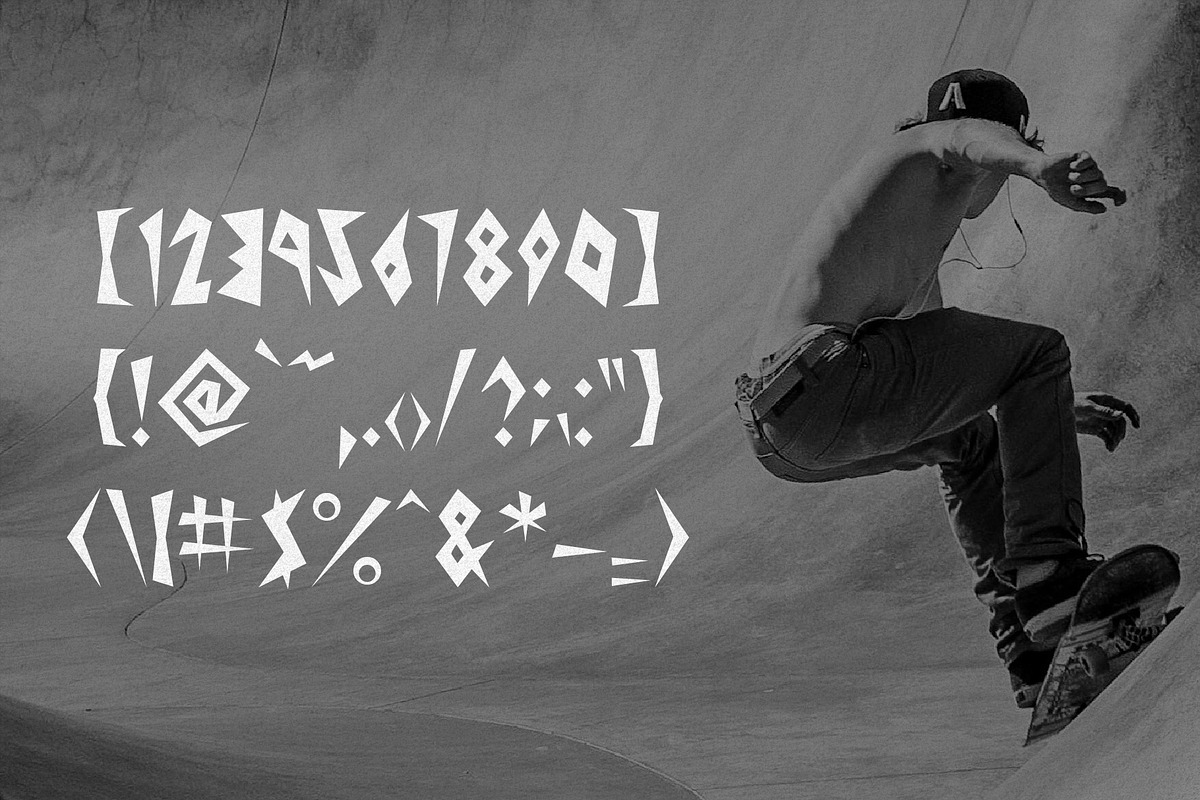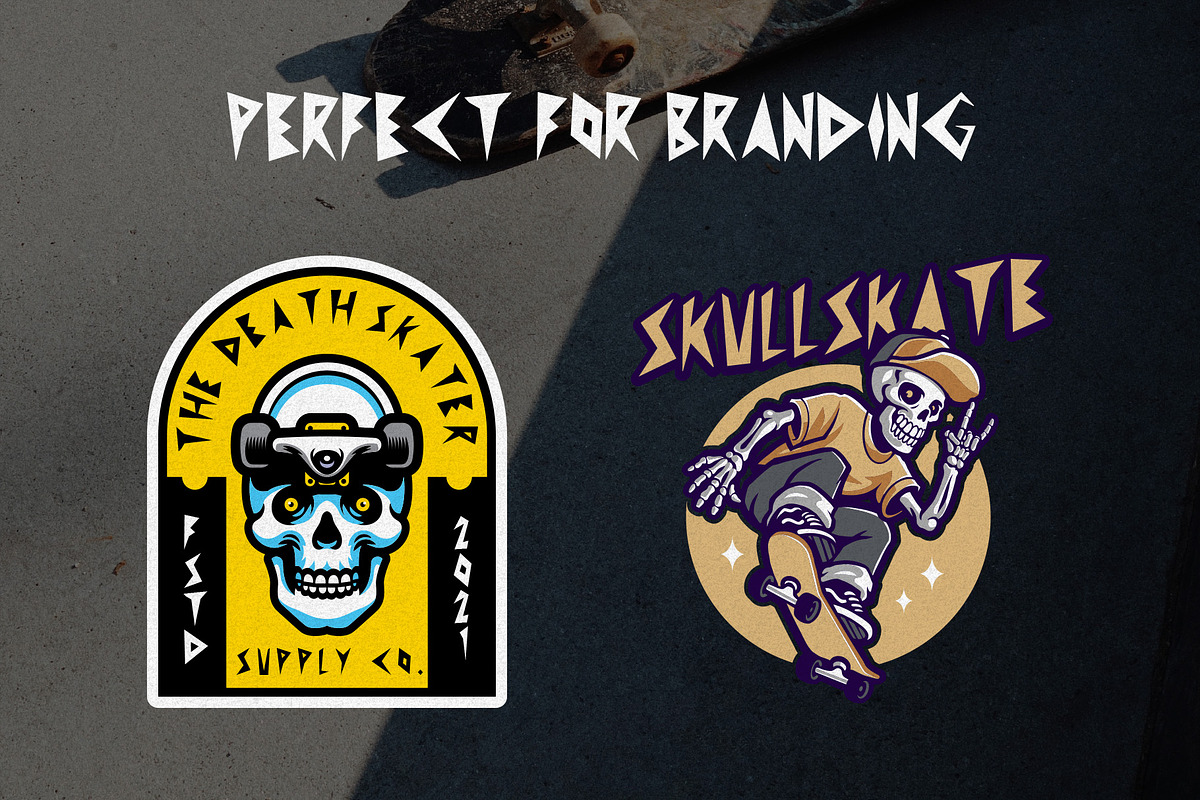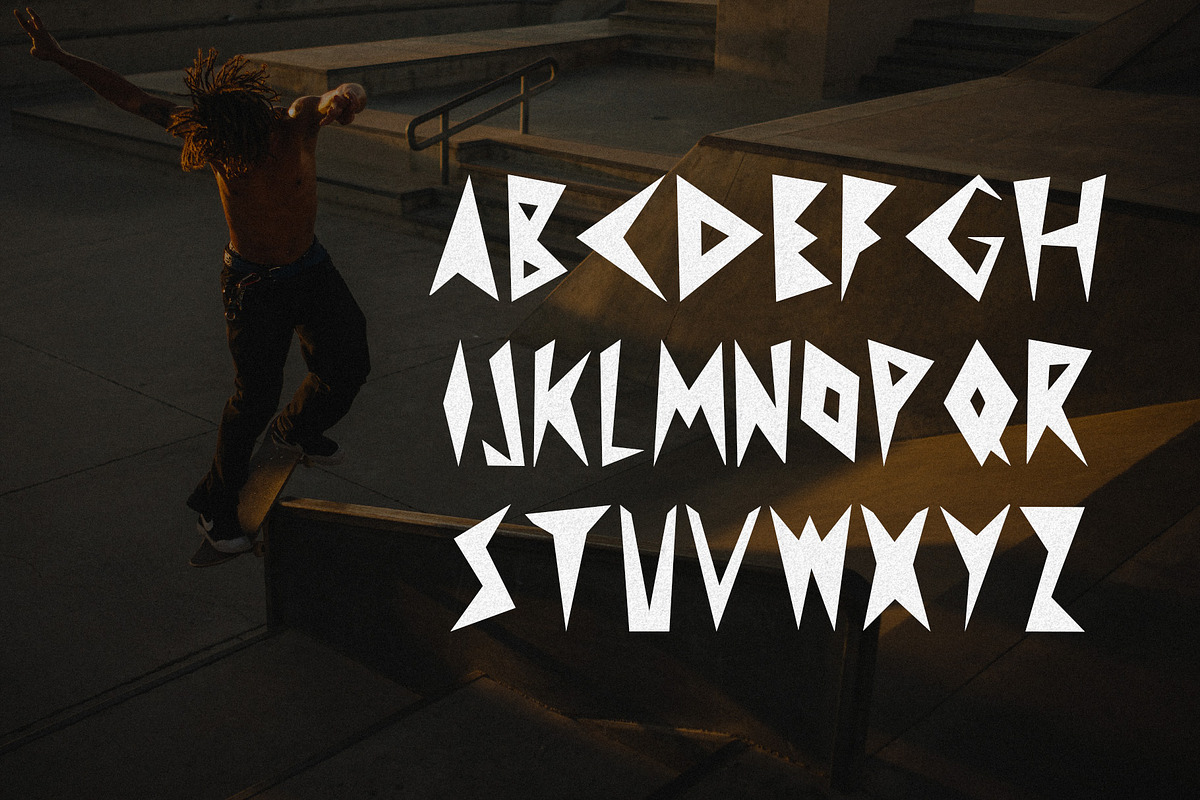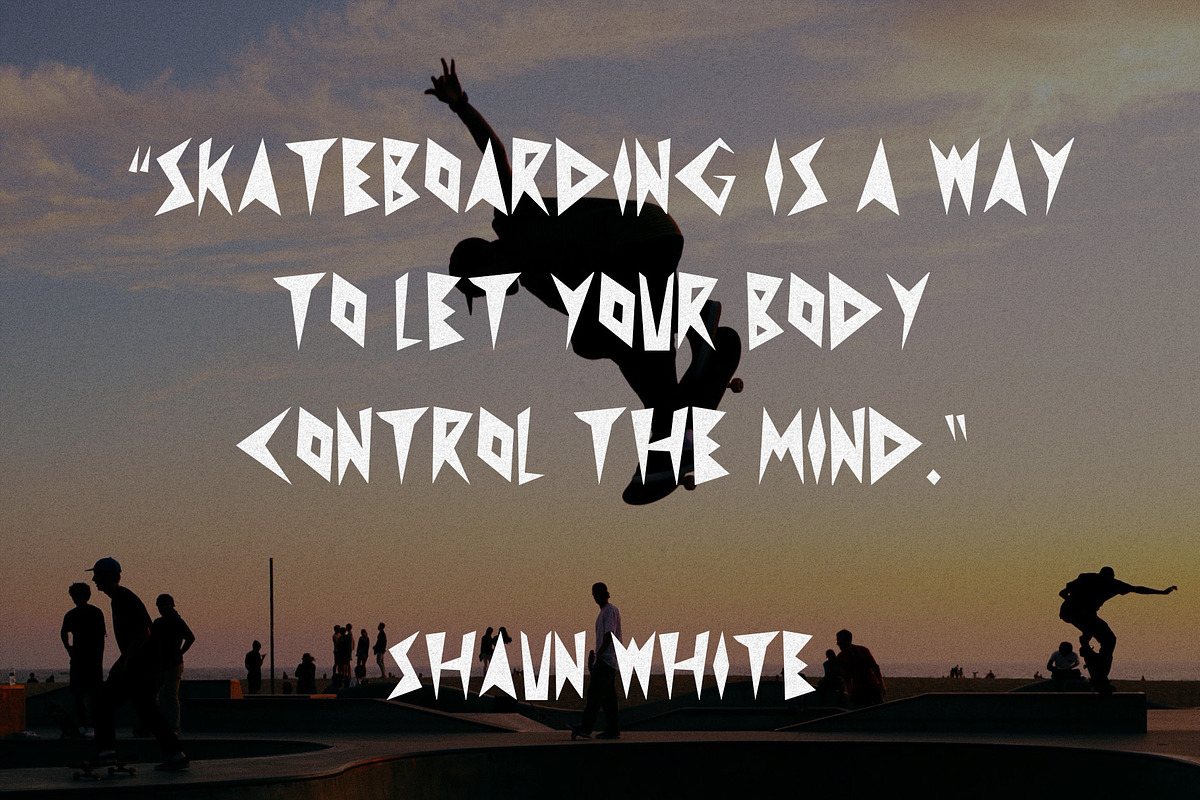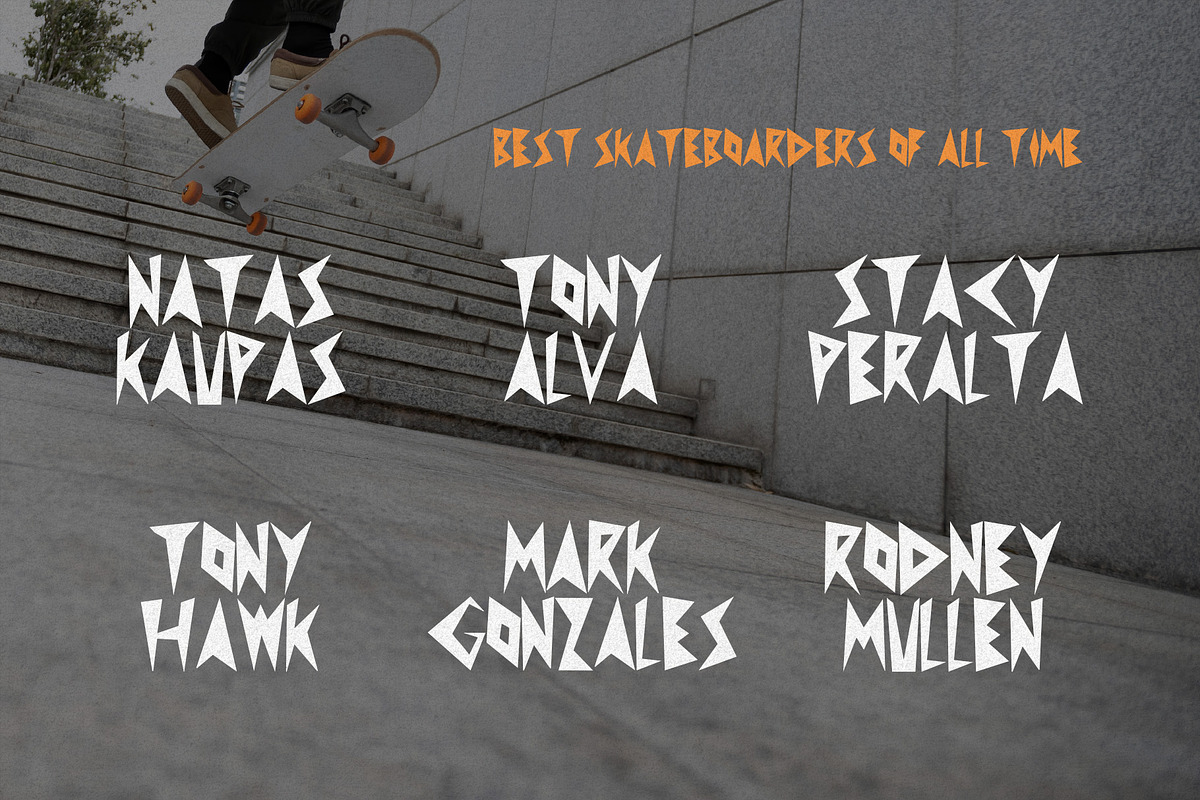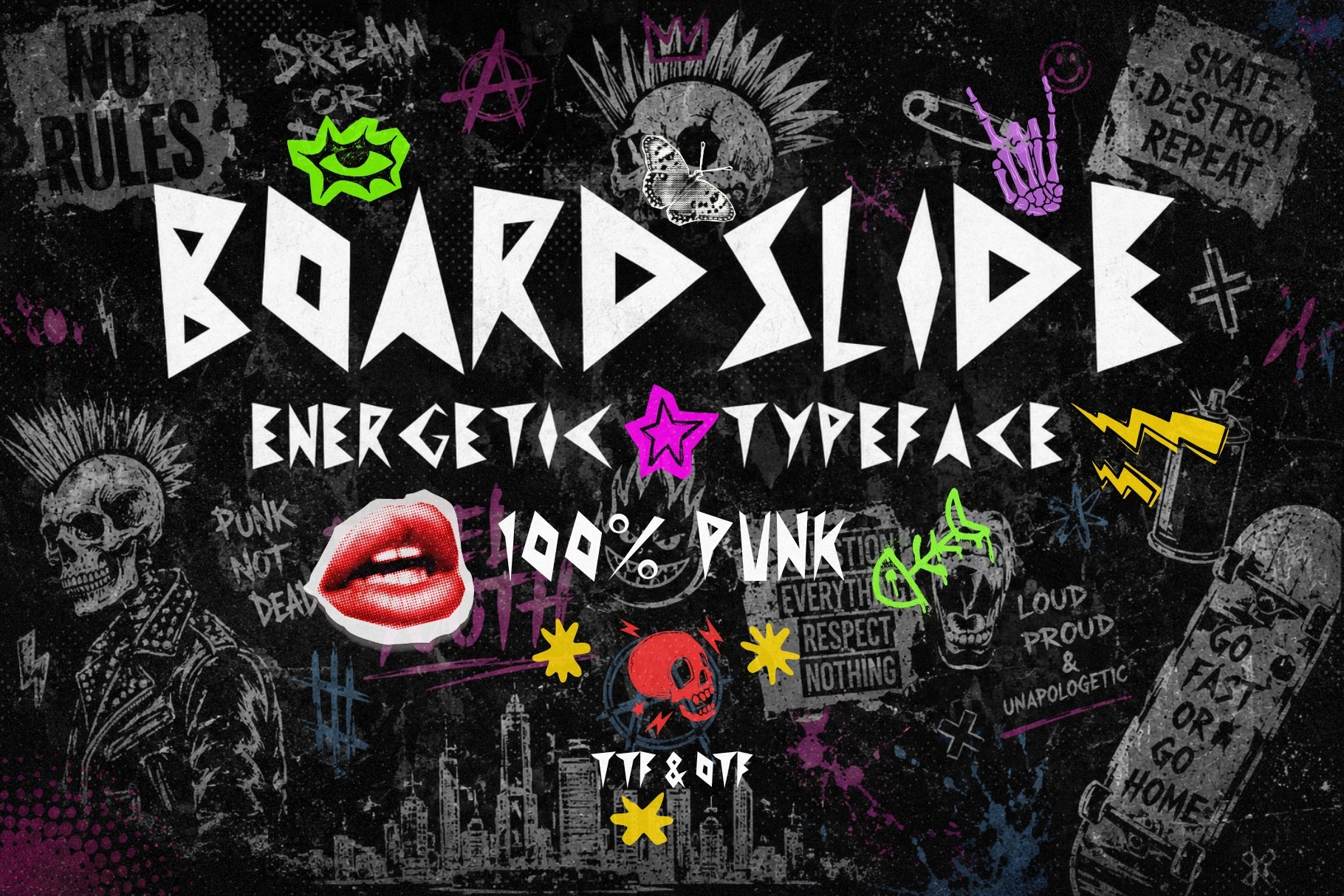
Boardslide - Energetic Typeface
Boardslide is a sharp, high-velocity typeface born from the collision of punk attitude and skate culture — two worlds defined by speed, rebellion, and making something out of nothing. Every letter hits with the same kinetic edge as a trick landed on rough concrete.
Built for designers who refuse to be boring, Boardslide is the go-to choice for logos, headlines, event posters, apparel graphics, social media content, YouTube channel art, and anywhere else your work needs to stop the scroll. Its all-caps structure delivers instant impact with the kind of raw, angular energy that turns ordinary layouts into something worth looking at twice.
Whether you're branding a skate shop, designing a festival lineup, or just want your next project to feel genuinely dangerous — Boardslide was made for exactly that.